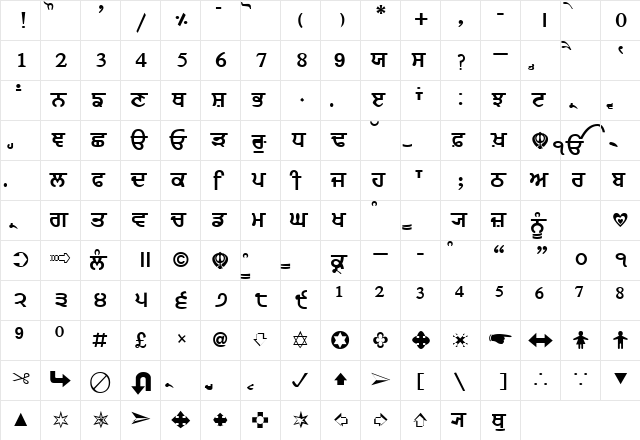
Janmeja2000J Normal Font Preview
Janmeja2000J Normal
Design Context for Janmeja2000J Typeface
Janmeja2000J offers clean, dependable letterforms without strong stylistic allegiance, making it a practical choice for designers who need flexibility.